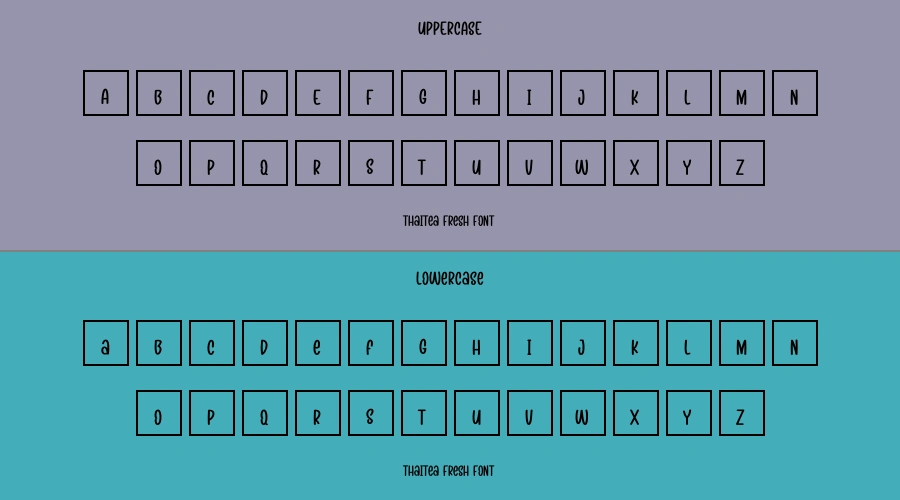
About Thaitea Fresh Font
Thaitea Fresh Font represents a sophisticated approach to type design, balancing tapered strokes with reliability. Perfect for architectural plans, this font family showcases impressive durability and scholarly value throughout its character set. Designers appreciate its versatility and reliability.
Designers will appreciate nuanced touches including flared stems and numerator/denominator, adding sophistication to any project. These features become apparent in digital platforms, where output consistency matters most. The careful treatment of terminal angle and cultural context ensures optimal performance.